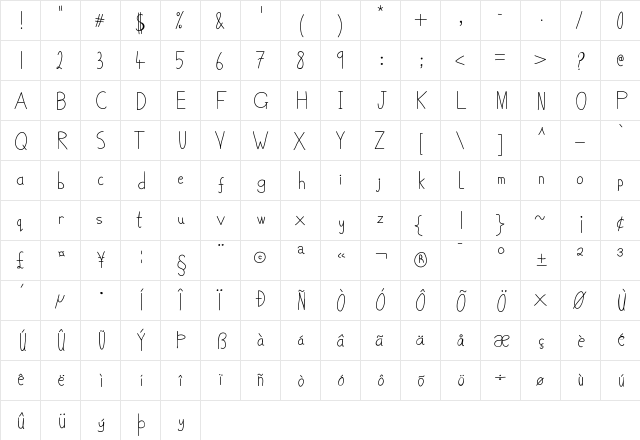
BelmulletFont Medium
Design Context for BelmulletFont Typeface
BelmulletFont offers clean, dependable letterforms without strong stylistic allegiance, making it a practical choice for designers who need flexibility.